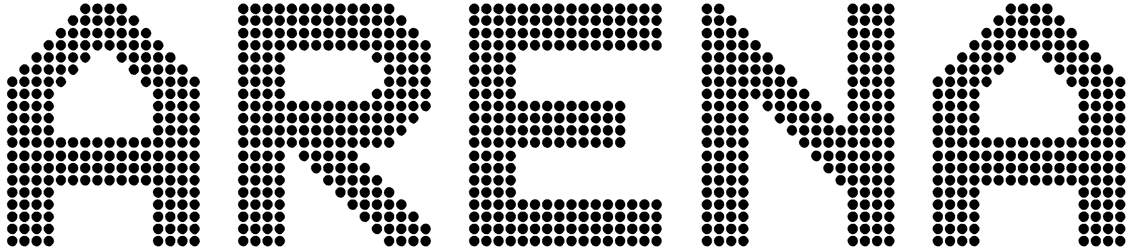
CAT Arena Font
You can use a technical and special style for many modern designs and impress the fans of these styles. As a techno font, CAT Arena has a bold and blocky form that can bring a captivating mood to your context. This digital clock font doesn’t support lowercase, but it will go on to be a unique option for countless items, namely apparel, flyers, web graphics, etc.
September 18, ein Forenmitglied zeigt die Buchstaben einer 1976 installierten Stadionanzeige und fragt nach der dort verwendeten Schrift. Schnell zeigt sich, dass diese damals als reine Digital-Zeichensat-ROM schrift bit für bit programmiert wurde, und nie als Satzschrift verfügbar war. Da sie so einige interessante Merkmale hat, habe ich dies jetzt nachgeholt.
Unterstützt auch Kyrillisch und Griechisch